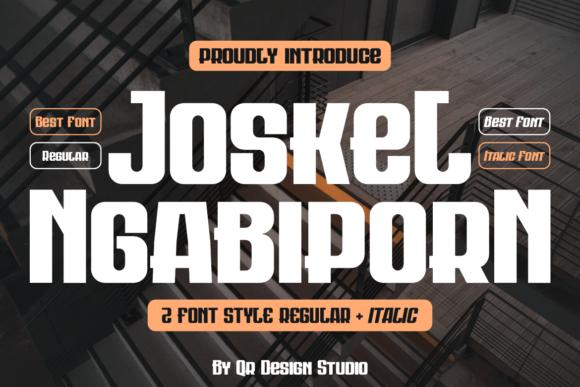
Journey into a gastronomic typography wonderland with Joskel Ngabiporn Sans Serif, the font that tantalizes taste buds and ignites culinary creativity. Crafted by qrdesignstd, this modern and versatile sans serif typeface is a feast for the eyes, bringing an air of elegance and readability to your culinary-inspired designs.
With its clean lines and balanced proportions, Joskel Ngabiporn Sans Serif dances across the page like a master chef, effortlessly enhancing menus, recipes, food blogs, and packaging designs. Each letterform is a delectable morsel, carefully crafted to whet the appetite and leave a lasting impression.
Indulge in the font's delectable versatility, as it harmoniously blends with various design elements, from vibrant food photography to rustic illustrations. Joskel Ngabiporn Sans Serif is the perfect ingredient to add a pinch of sophistication and a dash of contemporary flair to your culinary creations.
Let Joskel Ngabiporn Sans Serif be the secret ingredient that elevates your culinary designs to Michelin-star status. Its carefully curated character set, including OTF and TTF formats, ensures seamless integration into your design software, making it a must-have tool for any food-centric design project.